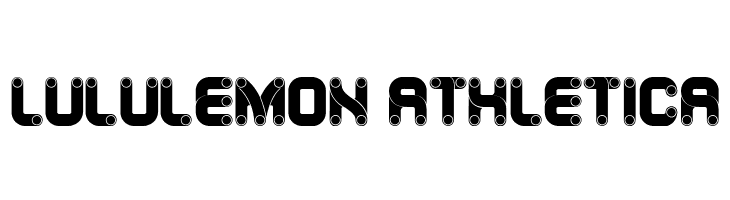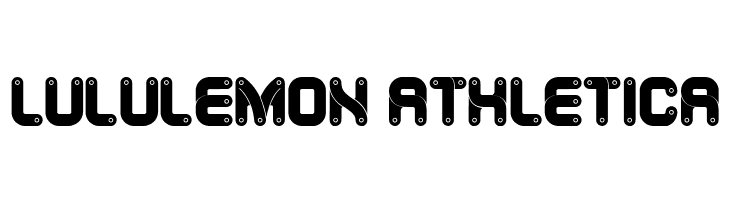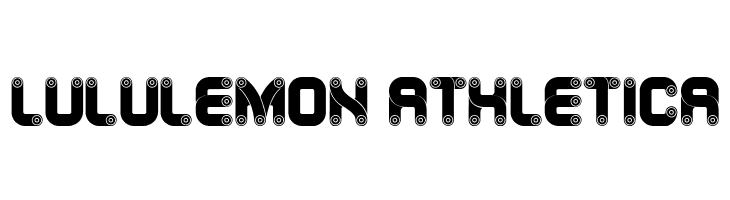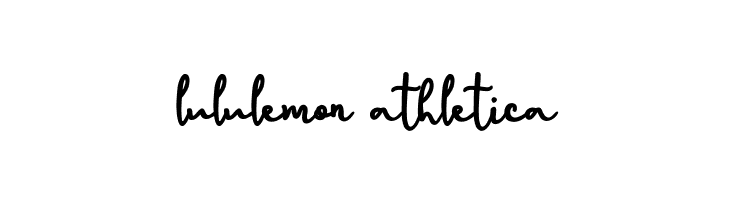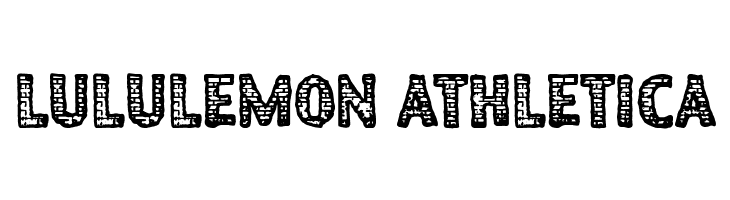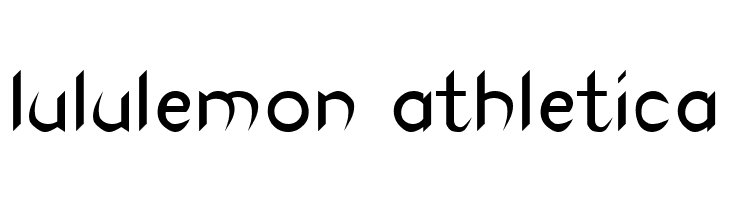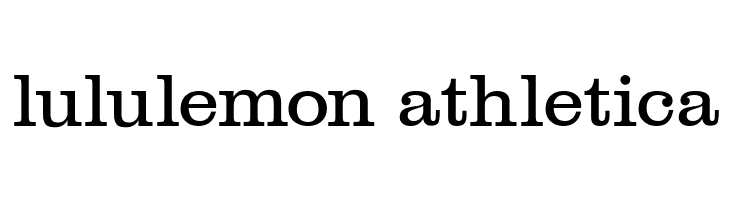
A bold, modern sans-serif font with clean lines and uniform strokes.
A sleek, modern italic font with medium contrast and elegant slant.
A modern, geometric sans-serif font with balanced spacing and clear readability.
A modern, geometric sans-serif font with clean lines and uniform stroke width.
A bold, elegant script font with flowing, interconnected letters.
A stylish and elegant script font with smooth, flowing strokes.
A bold, cursive font with a playful and energetic style.
A bold, cursive font with a flowing, handwritten style and italic slant.
A bold, angular font with a strong, authoritative presence.
An elegant, flowing script font with ornate uppercase and smooth lowercase letters.
A flowing, cursive script font with an elegant and artistic flair.
A playful, brushstroke-style font with a lively and artistic design.
An elegant, flowing script font with a handwritten style.
A decorative, brush-like font with organic, fluid forms and a whimsical style.
A lively, cursive font with interconnected, flowing strokes.
An ornate and decorative font with intricate floral embellishments.
An ornate, decorative font with floral embellishments and a vintage calligraphic style.
An ornate, decorative font with floral embellishments.
A dynamic and expressive handwritten font with fluid strokes and playful curves.
An elegant script font with flowing, cursive letters and refined flourishes.
A graceful script font with flowing, calligraphic letters and elegant flourishes.
A bold, expressive script font with flowing, cursive letterforms.
A lively handwritten font with fluid, expressive strokes.
A dynamic, cursive handwritten font with fluid strokes and elegant connections.
A flowing, cursive script with elegant, sweeping strokes and a handwritten appearance.
A fluid and dynamic handwritten font with a casual and creative style.
A bold, outlined decorative font with a playful yet sophisticated style.
A graceful and elegant script font with flowing, interconnected letterforms.
A flowing, cursive script font with elegant, interconnected characters.
A pixelated, retro-style font with a blocky, geometric design.
A graceful script font with flowing, interconnected letters and ornate uppercase characters.
An elegant script font with flowing, cursive letters and decorative flourishes.
A bold, handwritten font with a dynamic and energetic style.